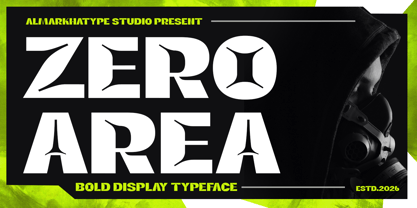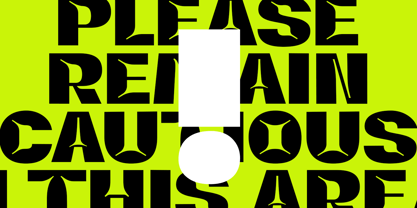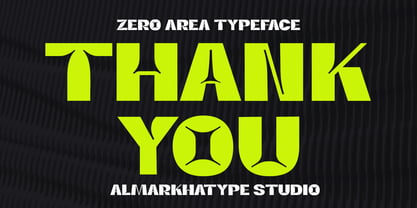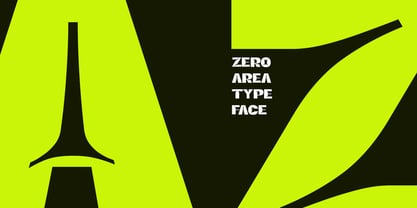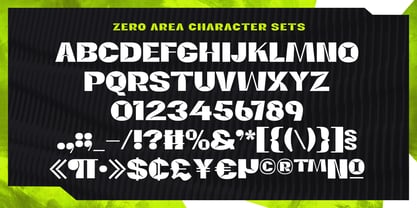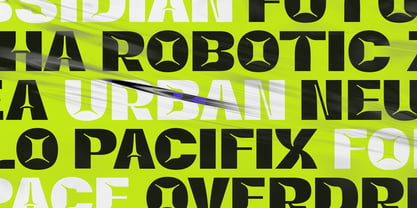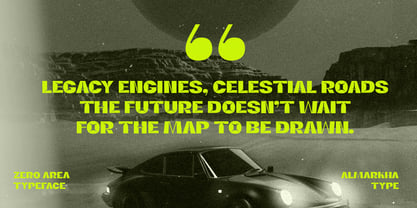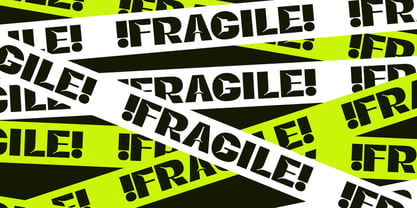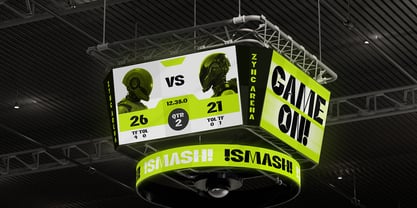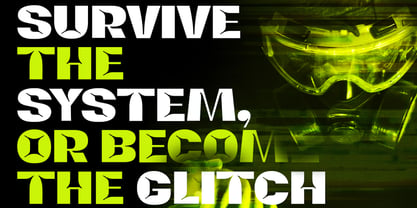
Zeroarea
by Almarkha Type
The Zeroarea Font Family was designed by Abdul Malik Wisnu and published by Almarkha Type. Zeroarea contains 1 styles. More about this family
Here comes a new font: introducing Zero Area, a unique bold display typeface with a strong sans-serif style. Inspired by futuristic visuals and urban underground aesthetics, this font brings a powerful and modern character to your designs. Perfect for creative projects such as logos, branding, posters, advertisements, product packaging, and more. Zero Area carries a bold handcrafted feel with sharp yet smooth details, giving your design a distinctive and striking appearance. This typeface is ideal for projects like invitations, book covers, streetwear designs, photography overlays, signage, labels, and creative digital artwork.
Designers: Abdul Malik Wisnu
Foundry: Almarkha Type